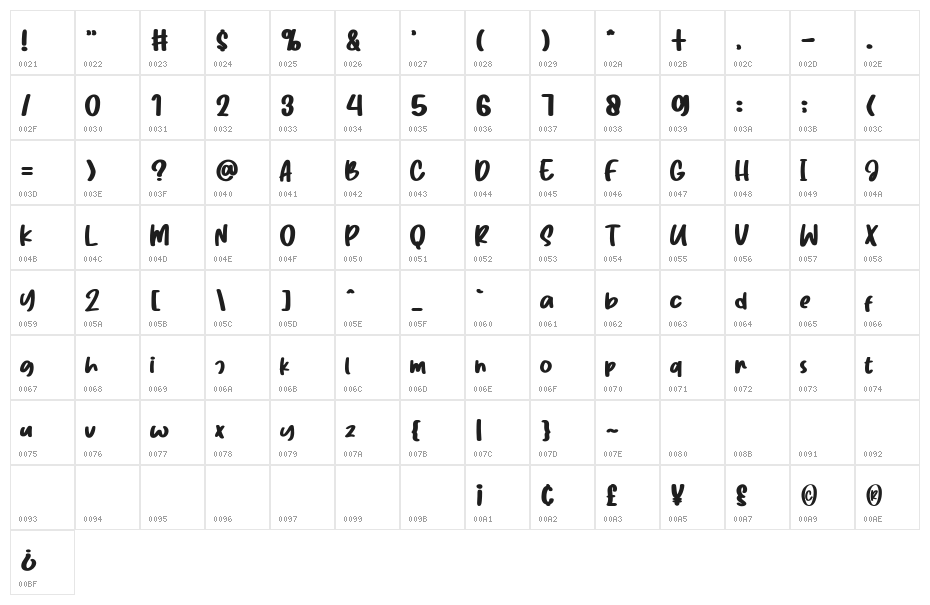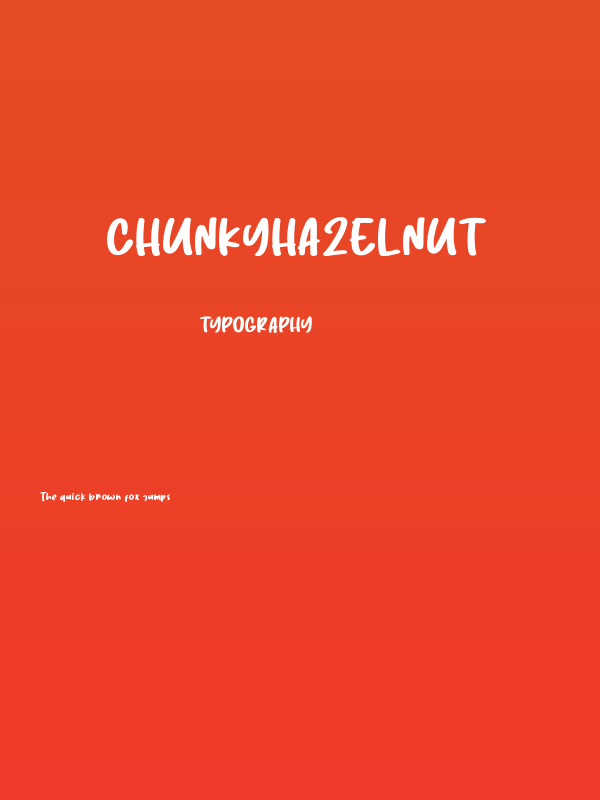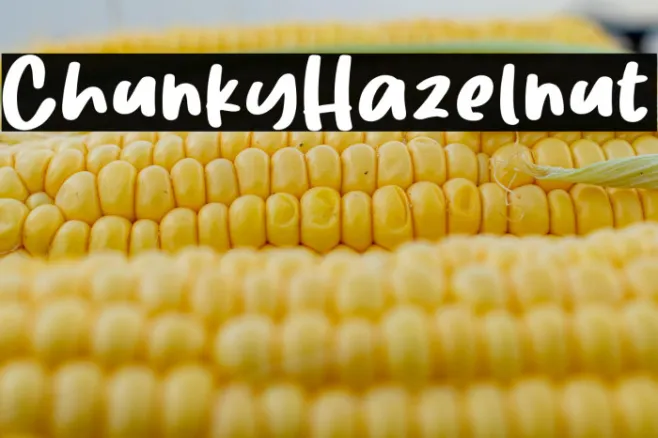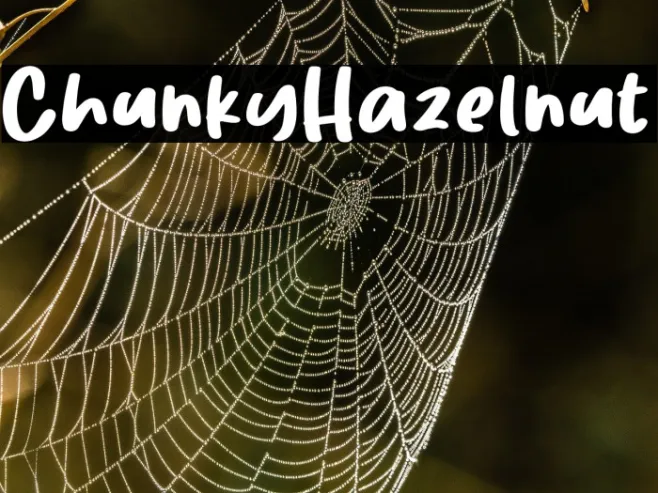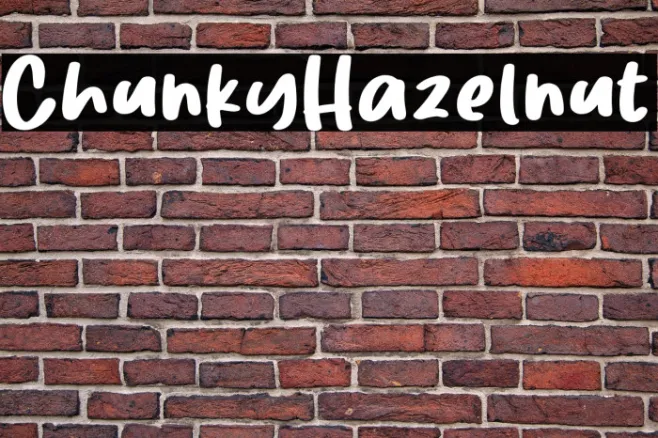
ChunkyHazelnut Font
ChunkyHazelnut Description
This font features a bold and playful script style with thick, rounded strokes that give it a friendly and approachable appearance. The characters are slightly slanted, adding a dynamic and energetic feel. The uppercase and lowercase letters maintain a consistent weight, contributing to a cohesive look. The numbers and special characters are designed to match the overall style, ensuring uniformity across all elements. The font's boldness makes it highly legible, even at smaller sizes, while the rounded edges soften its impact, making it suitable for a variety of applications.
| Proposed Projects | Ideal for branding, packaging, children's books, and playful graphic designs. |